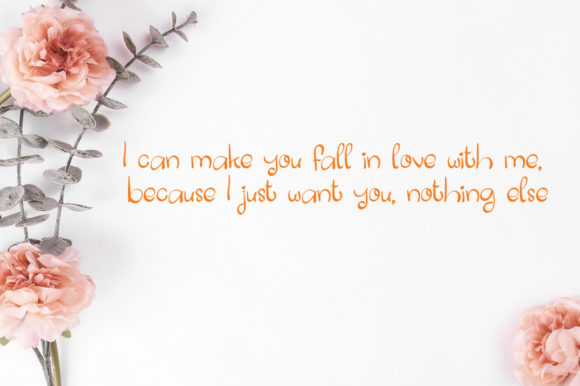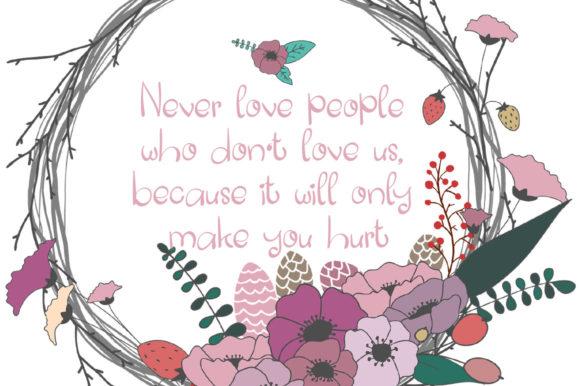
School Smile Font
db-ku.com - Script & Handwritten -- School Smile is a sweet, delicate and thin lettered script font. Its lovely and full of life style makes this font a wonderful choice for brightening up your designs.